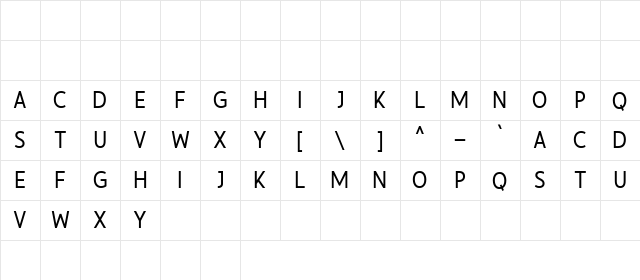
Museful Light Free Font
Museful Light
Foundry: NanDesign Foundry
Designer: Frada Nanda
Design Context for Museful
Museful is a composed and adaptable typeface that performs quietly and consistently across a wide range of design contexts. Its slender proportions lend an understated elegance to any composition.